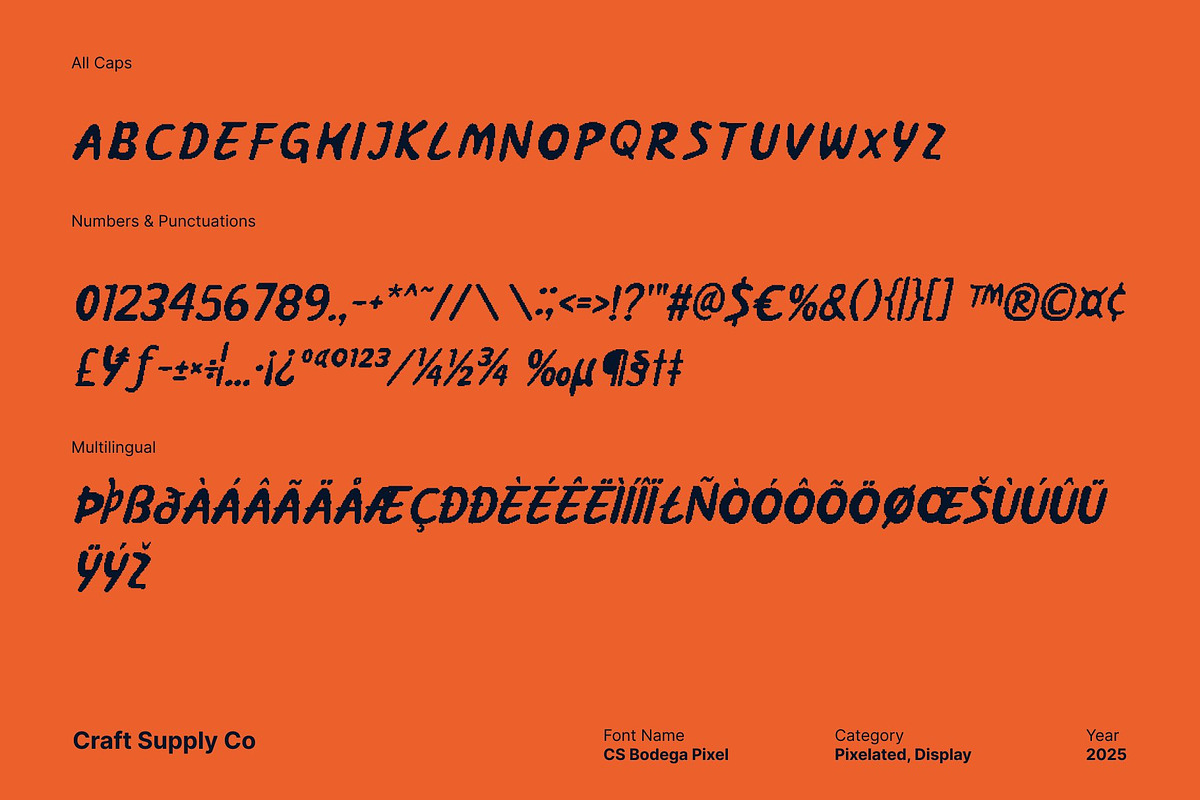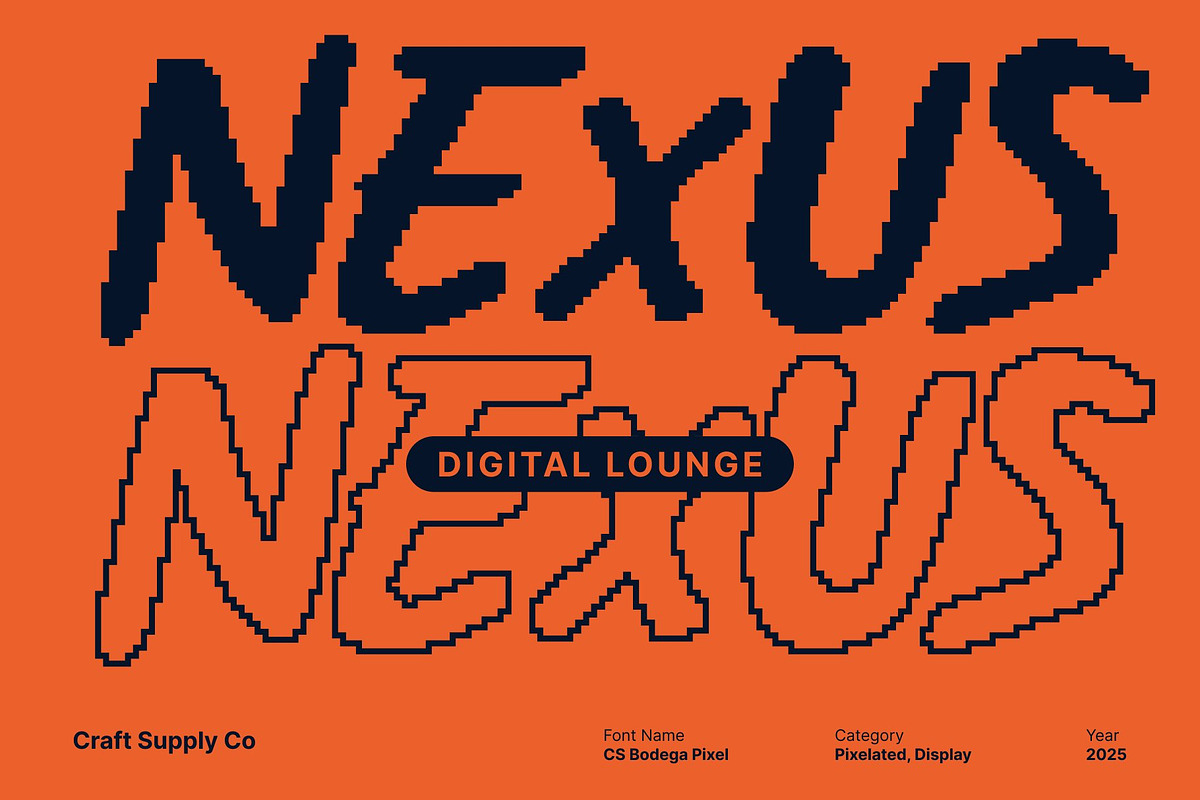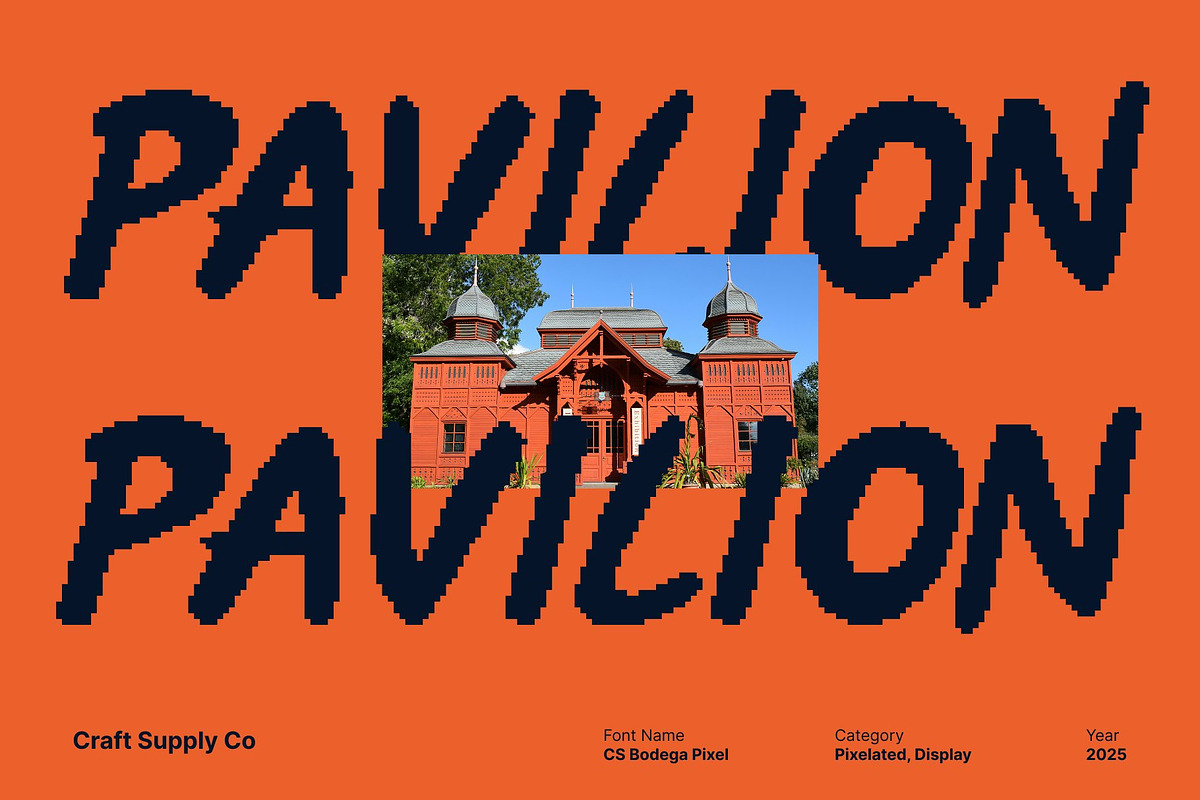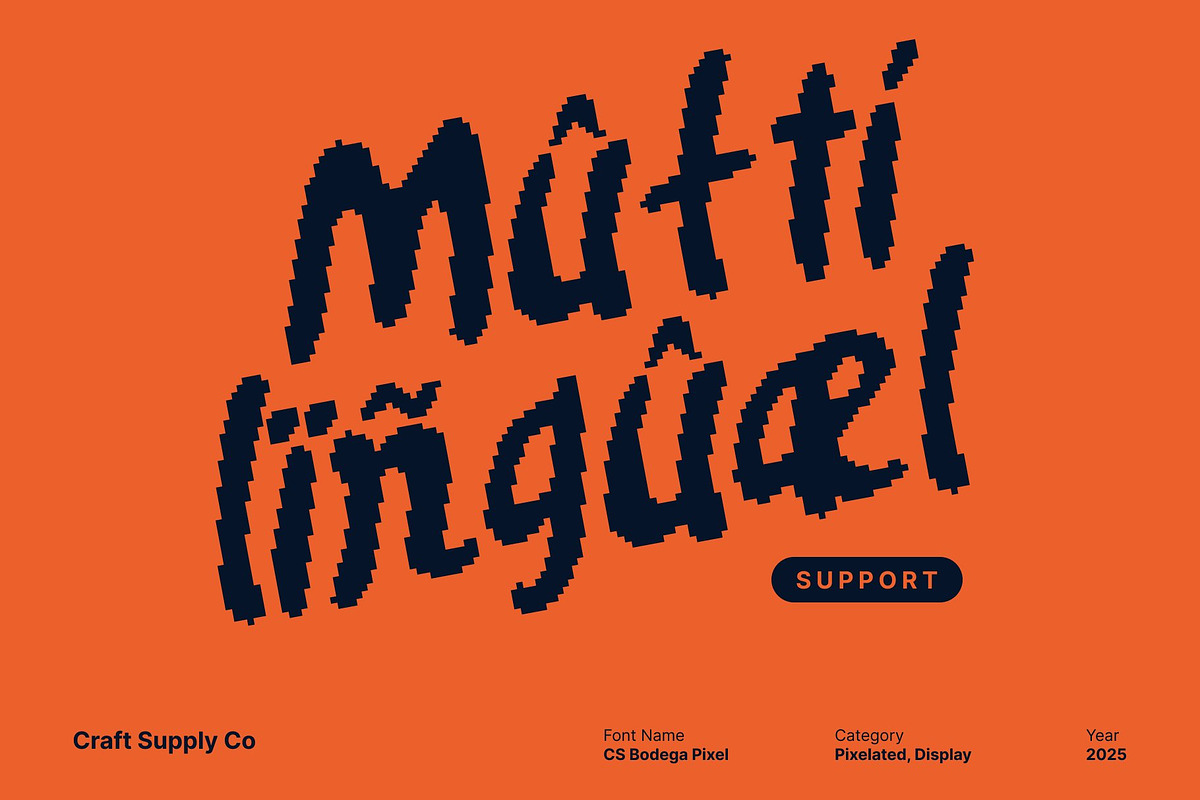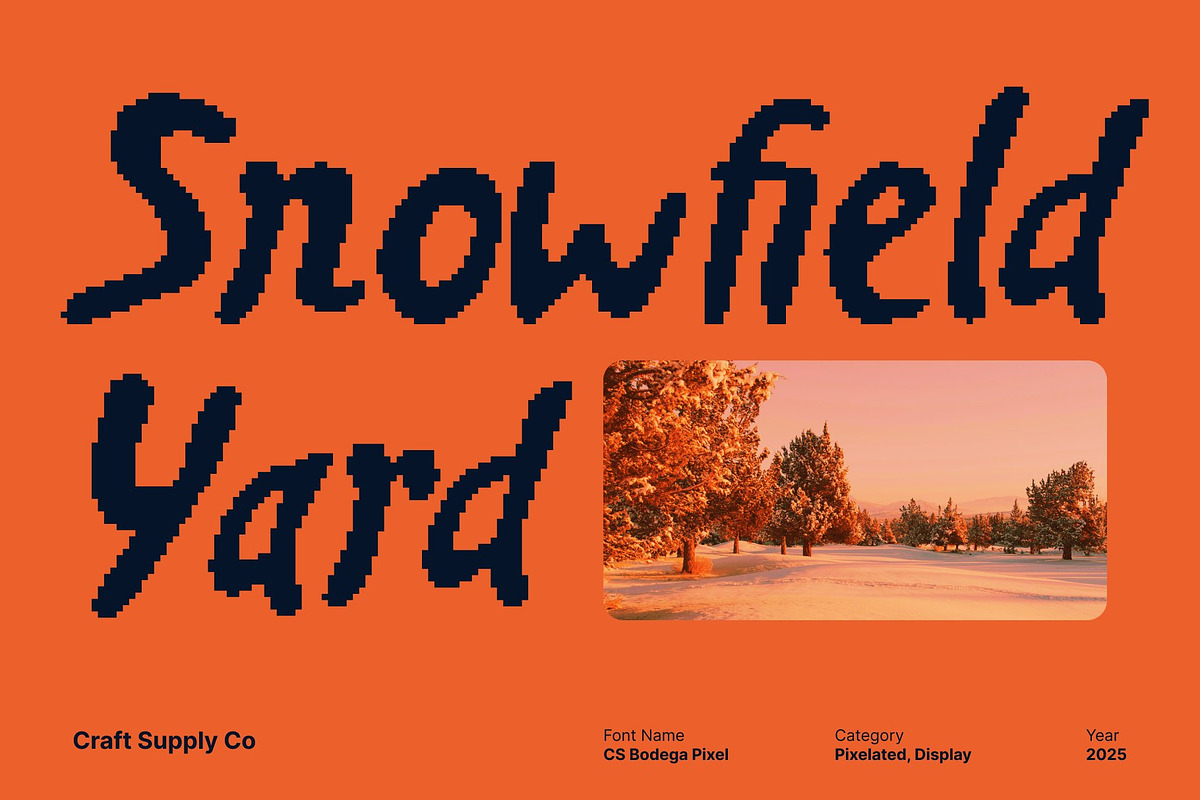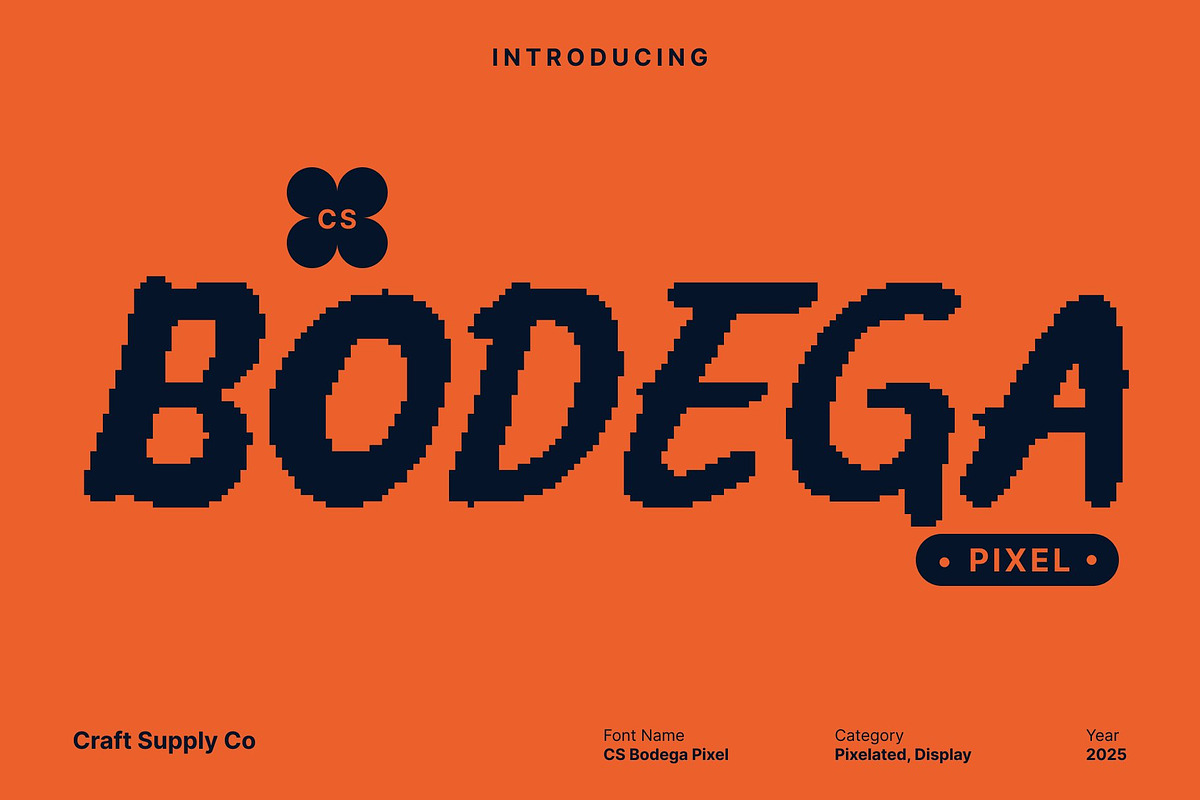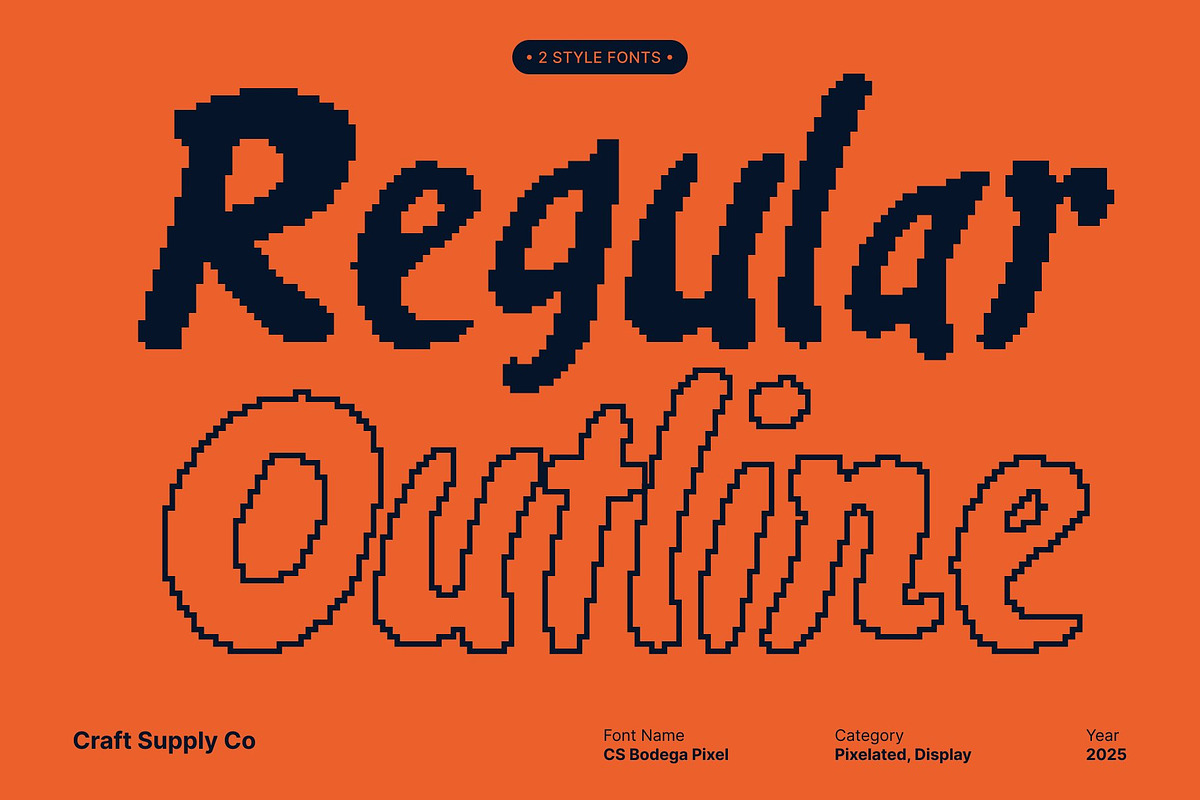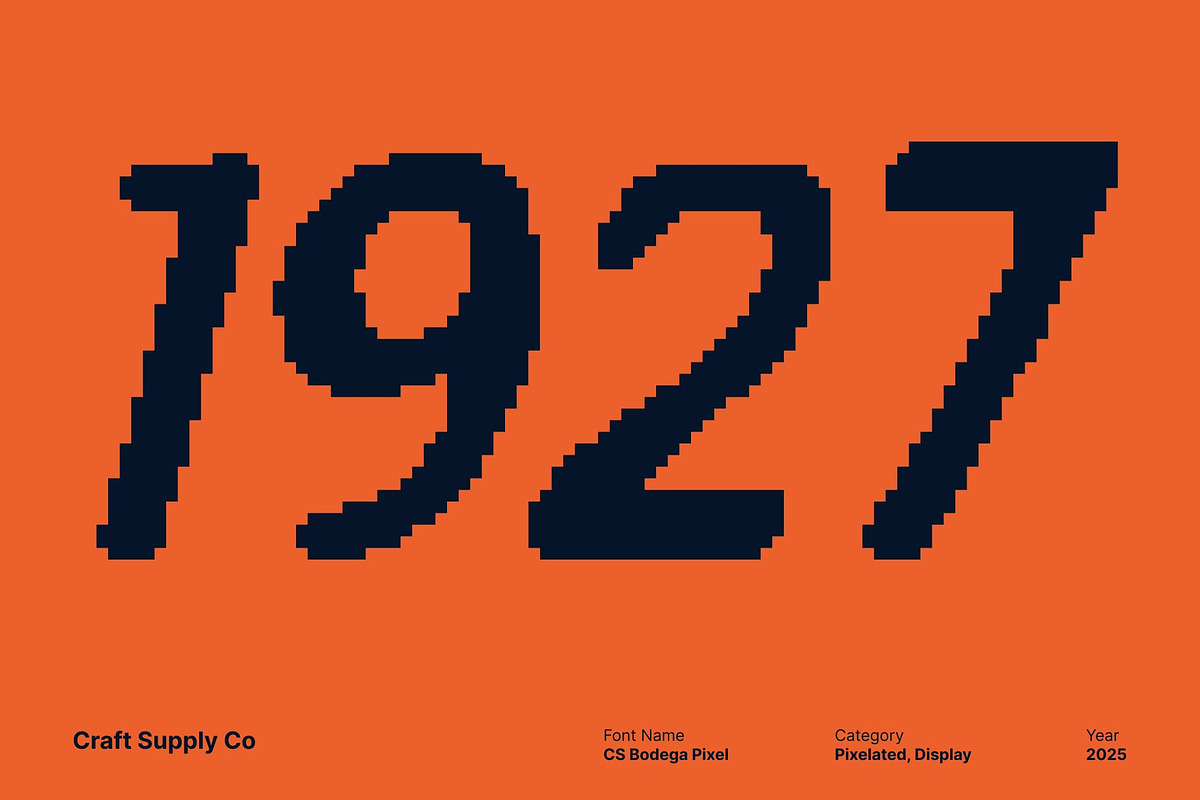
CS Bodega Pixel
CS Bodega Pixel – Playful Handwritten Pixel Font with Bold Digital Charm
A Playful Fusion of Pixel Art and Bold Handwriting This font brings together the fun energy of a handwritten style with the nostalgic structure of pixel graphics. Designed to look cute, lively, and expressive, this font features bold strokes that amplify its handwritten character, making every letter feel dynamic and full of personality.
Pixelated Style with a Cute Modern Twist The pixelated shapes give the font a classic 8-bit vibe, reminiscent of early digital aesthetics, but reimagined with a modern, cute design approach. Each character is built with charming pixel precision while maintaining a friendly, easy-to-read form.
Handwritten Texture for Expressive and Digital-Friendly Personality Bold, hand-drawn strokes bring warmth and expressiveness to the typeface. The handwritten influence softens the geometric pixel grid, creating letters that feel personal, approachable, and creative. This unique texture makes the font stand out, adding depth and handcrafted flair to any design that needs a strong yet playful presence.
Perfect for Posters, Branding, and Creative Digital Designs Whether you’re designing eye-catching posters, playful branding concepts, retro-inspired graphics, or digital visuals, this font shines with versatility. Its combination of pixel aesthetics and bold handwritten style makes it ideal for creative projects that want to feel energetic, cute, and visually distinctive.